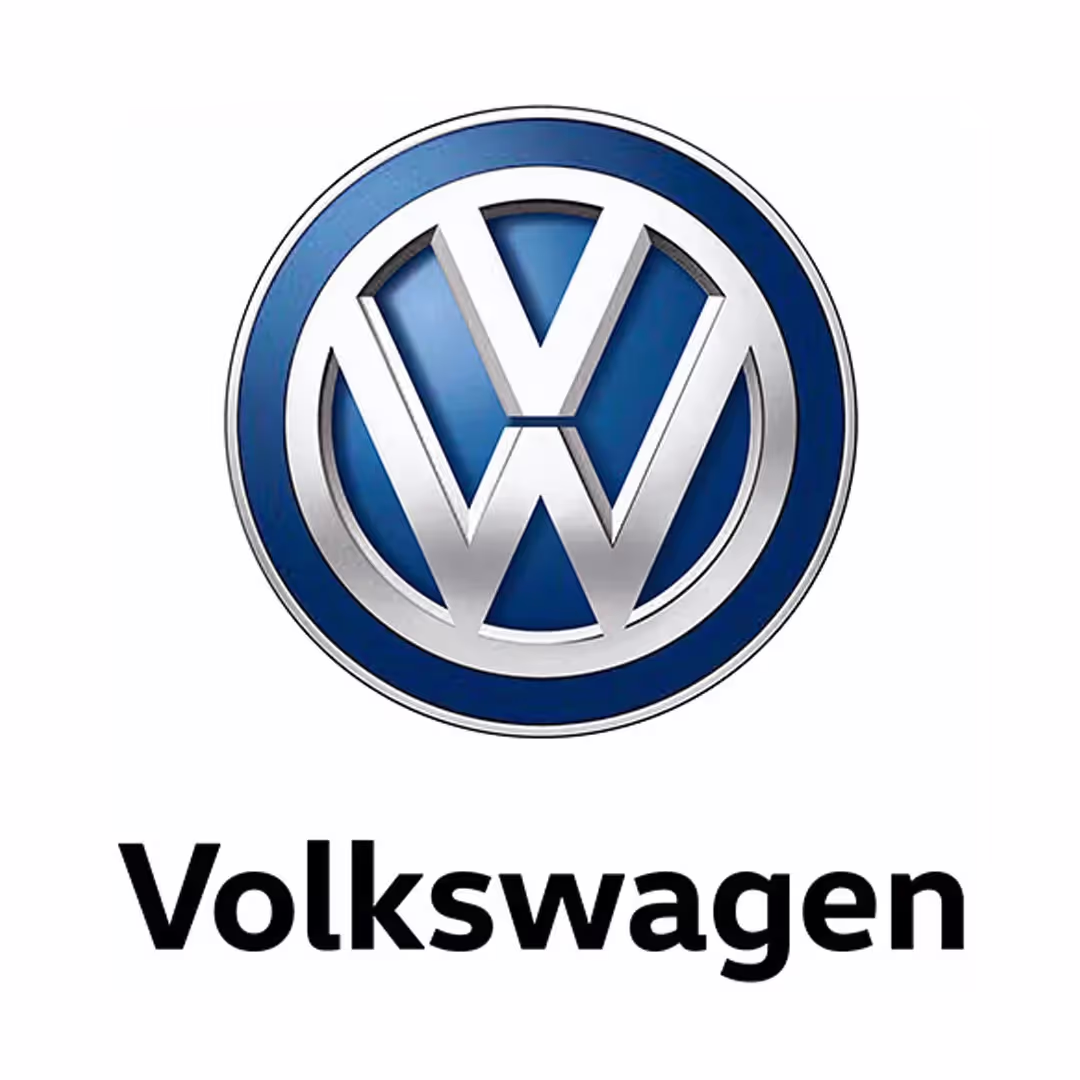
Volkswagen (VW) Logo Font
VW Head
Display only additional informationVW Head is a custom typeface designed by HvD font for Volkswagen AG. The font was Designed by Hannes von Döhren, Livius Dietzel in 2015
Volkswagen, shortened to VW, is a German automaker founded in 1937 and headquartered in Wolfsburg. It is the flagship brand of the Volkswagen Group and became the world’s largest automaker by global sales in 2016 and 2017. The Volkswagen logo font, Volkswagen Head, is a custom sans serif typeface developed for the brand’s corporate identity. The clean, geometric letterforms reflect clarity, engineering precision, and modern automotive design.